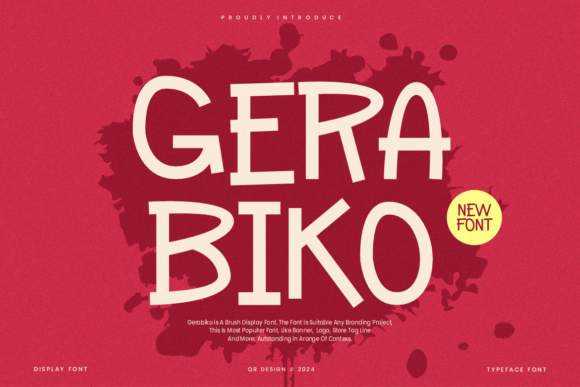
Introducing Gerabiko Font: The Bold and Assertive Sans Serif for Your Creative Arsenal
In the world of design, the right font can make all the difference. It’s the unsung hero that can elevate your project from good to great, transforming the way your message is conveyed and received. For designers, crafters, and creatives looking for a font that packs a punch, Gerabiko Font is an exceptional choice. This bold and assertive sans serif font is designed to make an impact, no matter the topic or project you’re working on.
The Power of Gerabiko Font
Gerabiko Font stands out with its clean lines, modern aesthetic, and unmistakable confidence. It’s a font that commands attention without being overbearing, making it perfect for a wide range of applications. From branding and advertising to digital media and print, Gerabiko can be the go-to font for projects that demand a bit of boldness and personality.
Key Features of Gerabiko Font
- Bold and Assertive: Gerabiko’s design is centered around being noticed. Its bold strokes and assertive presence ensure your message isn’t just seen, but also remembered.
- Sans Serif Elegance: The clean, modern look of Gerabiko makes it versatile for both digital and print media. Its sans serif design lends itself to a contemporary feel that’s hard to ignore.
- Versatility: Whether you’re working on a logo, a headline, or body text, Gerabiko’s adaptability shines. It’s a font that can be used across various platforms and projects.
- Easy to Read: Despite its bold nature, Gerabiko maintains a high level of legibility. This ensures your message is conveyed clearly and effectively, without sacrificing style for substance.
Why Choose Gerabiko Font?
Choosing a font for your project can be overwhelming, given the countless options available. However, Gerabiko Font offers several compelling reasons to make it your top pick:
- Unique Identity: Gerabiko helps your project stand out in a crowded space. Its unique boldness and assertiveness ensure your work doesn’t get lost in the noise.
- Professional and Modern: The font exudes professionalism and a modern edge, making it suitable for businesses and individuals looking to make a contemporary statement.
- Wide Range of Applications: From editorial design, advertising, and branding to web design and more, Gerabiko’s versatility knows no bounds.
How to Use Gerabiko Font Effectively
To get the most out of Gerabiko Font, consider the following tips:
- Pair with Complementary Fonts: While Gerabiko is bold and assertive on its own, pairing it with a more subtle font can create a dynamic and engaging visual hierarchy.
- Experiment with Sizes and Weights: Don’t be afraid to play around with different sizes and weights of Gerabiko to add depth and contrast to your design.
- Consider Your Audience: Ensure that Gerabiko’s boldness aligns with your project’s tone and audience. It’s perfect for projects that require confidence and assertiveness.
Gerabiko Font is more than just a typeface; it’s a statement. It’s a bold declaration of confidence and modernity that can elevate any project. Whether you’re a designer looking to add some punch to your branding, a marketer aiming to make an impact with your advertising, or a crafter seeking a versatile font for your digital creations, Gerabiko is an incredible asset to your fonts library. Its versatility, combined with its bold and assertive personality, makes it a valuable tool for bringing your creative visions to life.
So, why settle for ordinary when you can make a statement with Gerabiko Font? Explore its potential today and discover how it can transform your designs into something truly memorable.